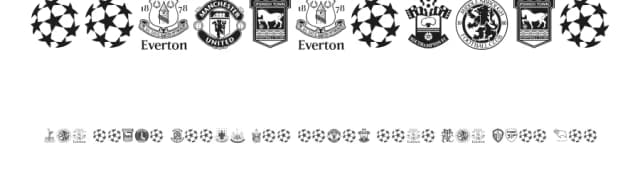
About Volan Font
Volan is a decorative font designed by Nowak.tv. It includes 116 glyphs, a regular weight, TTF (TrueType) format, and 106 languages. Volan is free to download; check the license details on this page before commercial use. Decorative fonts like Volan work best for logos, posters, packaging, and standout headlines.
Volan Font is a decorative font that shines as a display or heading face. Pair it with a clean sans-serif or serif font for body text β the contrast creates a clear hierarchy while the two styles stay balanced and easy to read.
Volan Font
by Nowak.tv
Volan Font is a decorative typeface by Nowak.tv, ideal for logos, invitations, branding, and creative projects.